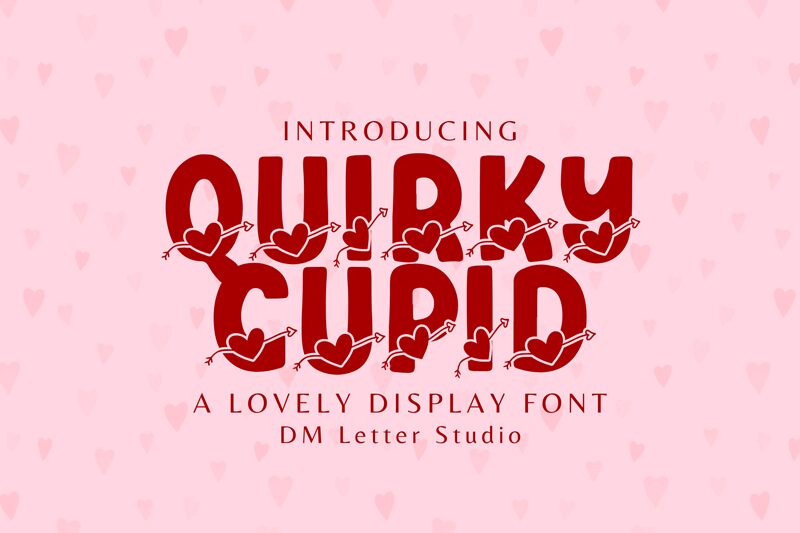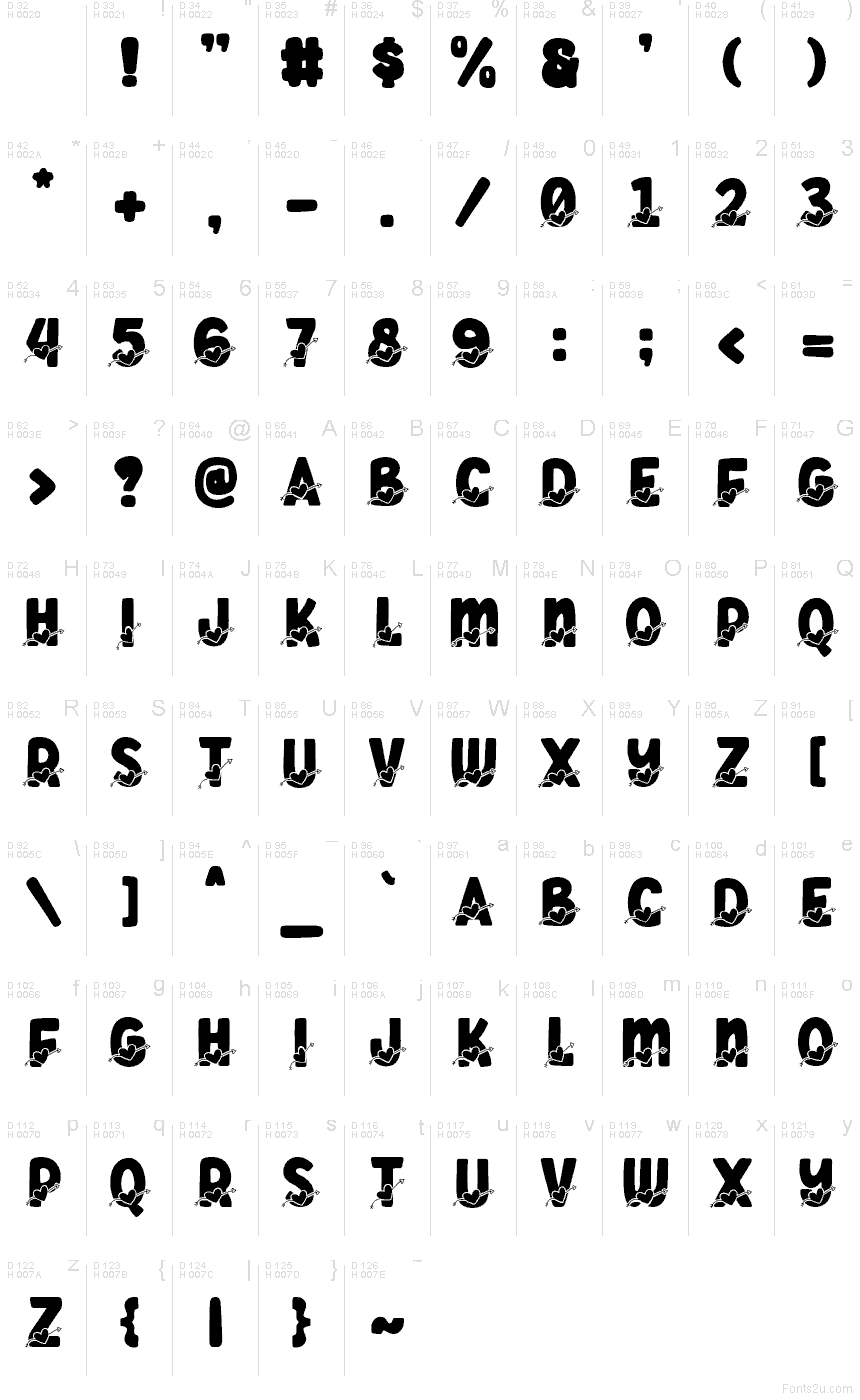
Quirky Cupid
Quirky Cupid font by DM Letter Studio - Dimas Prasetyo is a free Valentine holiday decorative font that turns every word into a little love note. Chunky, inky letters sit snugly above a parade of hearts and arrows, creating a bold, banner-like stripe of romance across the page. The rounded, cartoonish shapes feel playful rather than overly sweet, so your designs keep their fun, slightly cheeky personality.
Using Quirky Cupid, headlines instantly look like ready-made Valentine graphics without extra illustration work. This free font shines on greeting cards, classroom printables, party invitations, stickers, social media posts, and candy packaging. Keep it big and bold for maximum impact, and pair it with a clean sans serif for small supporting text so the heart-and-arrow motif can do the heavy lifting.